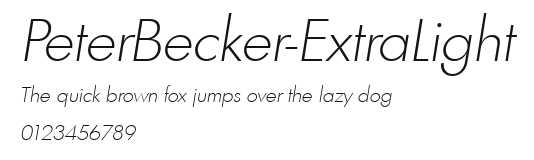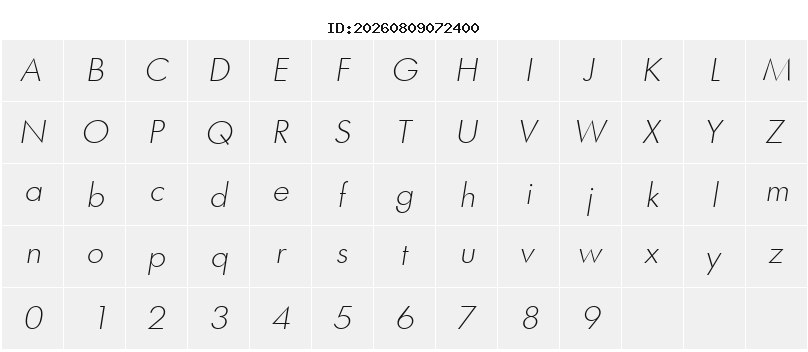
PeterBecker-ExtraLight Preview
• Font Name: PeterBecker-ExtraLight
• Full Font Name: PeterBecker-ExtraLight Italic
• PostScript Name: PeterBecker-ExtraLight-Italic
About PeterBecker-ExtraLight.ttf
PeterBecker-ExtraLight.ttf is a modern, elegant sans-serif font designed for ultimate readability and visual harmony. Perfect for branding, headlines, web design, and print materials.